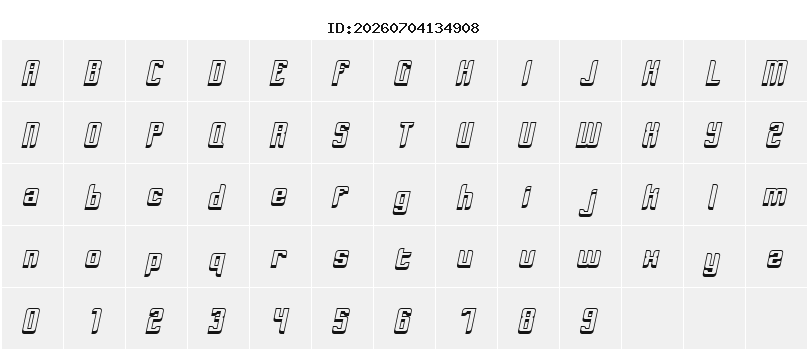
Dymeda Preview
• Font Name: Dymeda
• Font Style: Shadow Italic
• Font ID: TracerTong: Dymeda Shadow Italic: 2012
• Full Font Name: Dymeda Shadow Italic
• PostScript Name: Dymeda-ShadowItalic
• Character Count: 90
• Manufacturer: TracerTong
About Dymeda.ttf
Dymeda.ttf is a modern, elegant sans-serif font designed for ultimate readability and visual harmony. Perfect for branding, headlines, web design, and print materials.